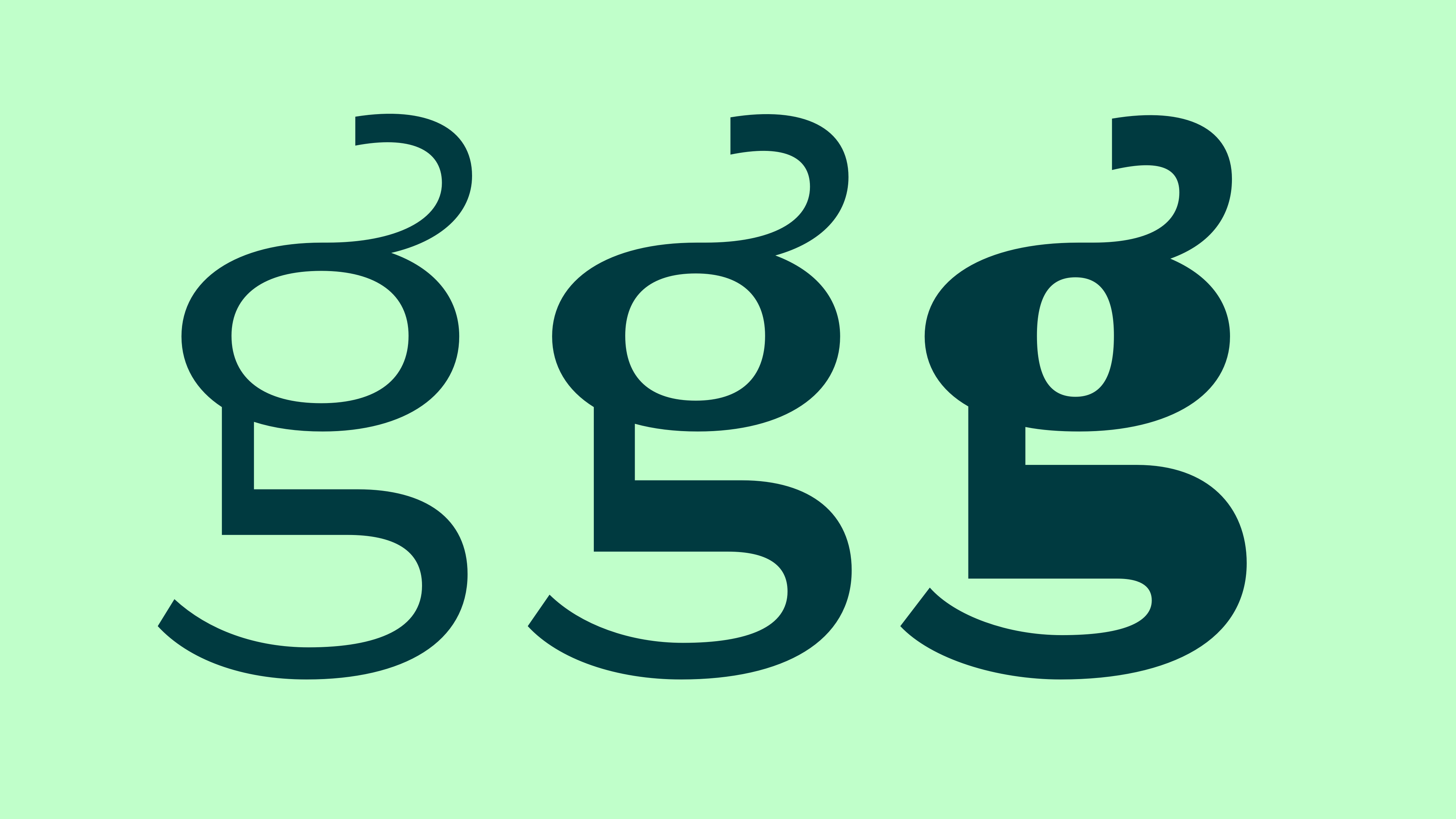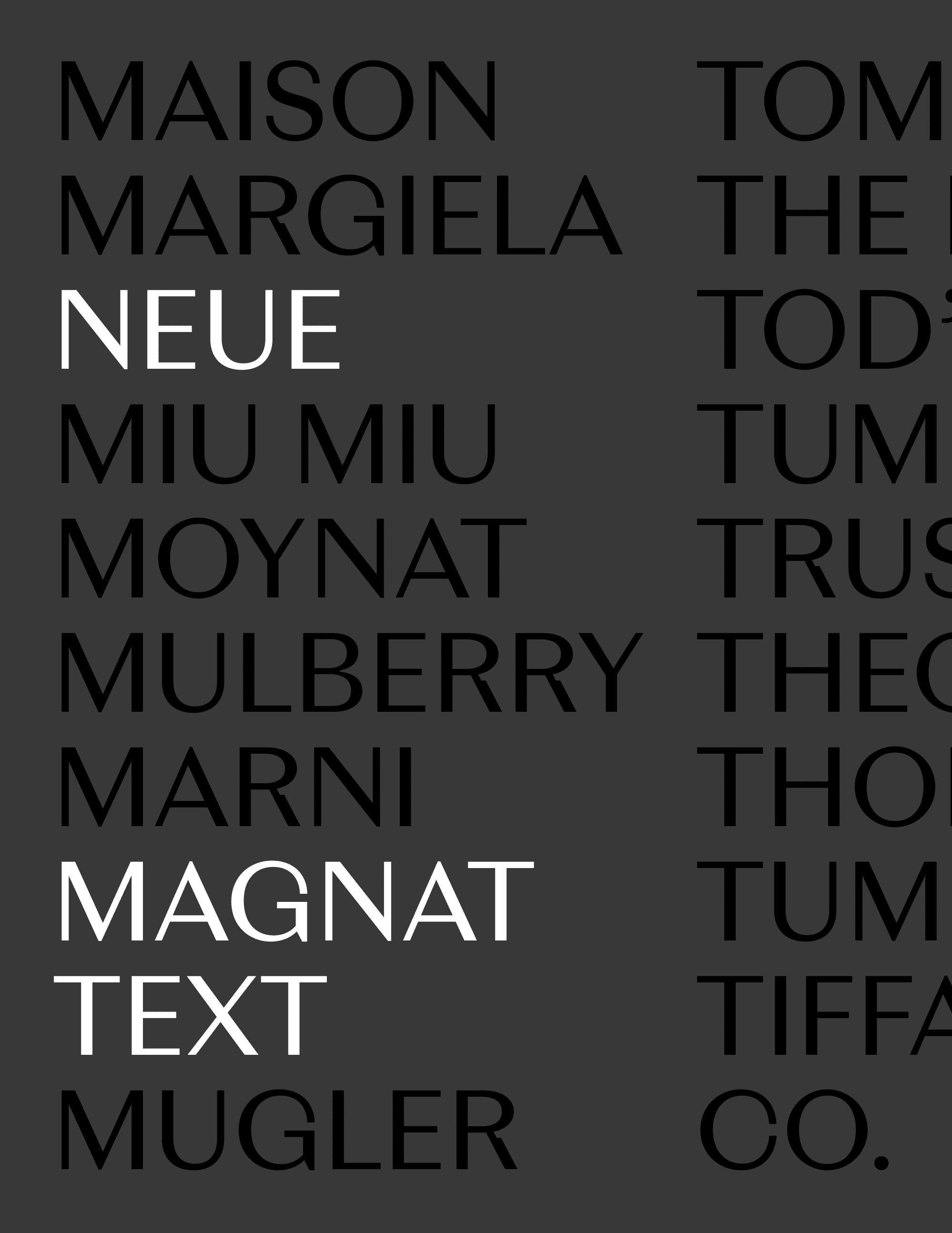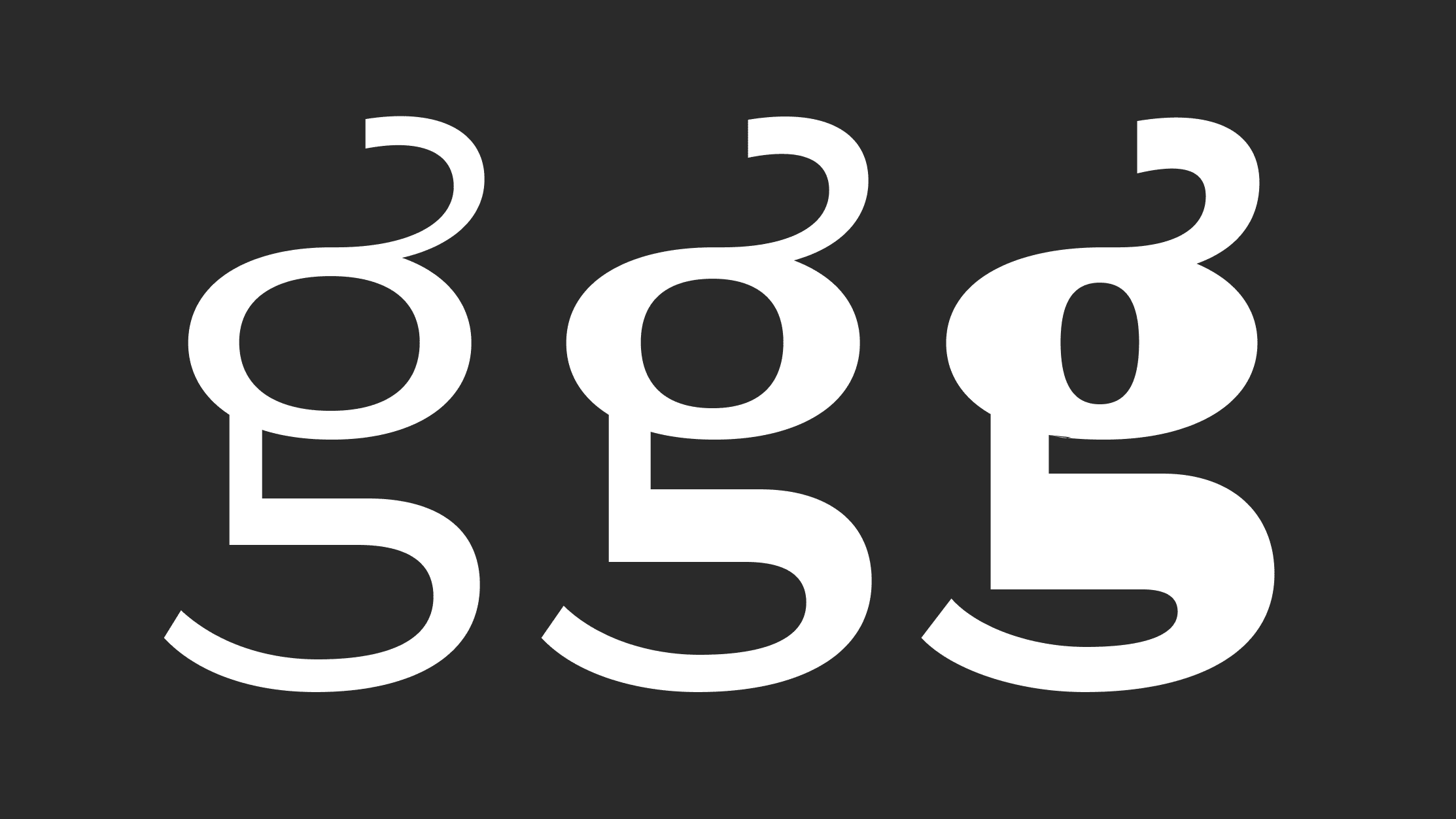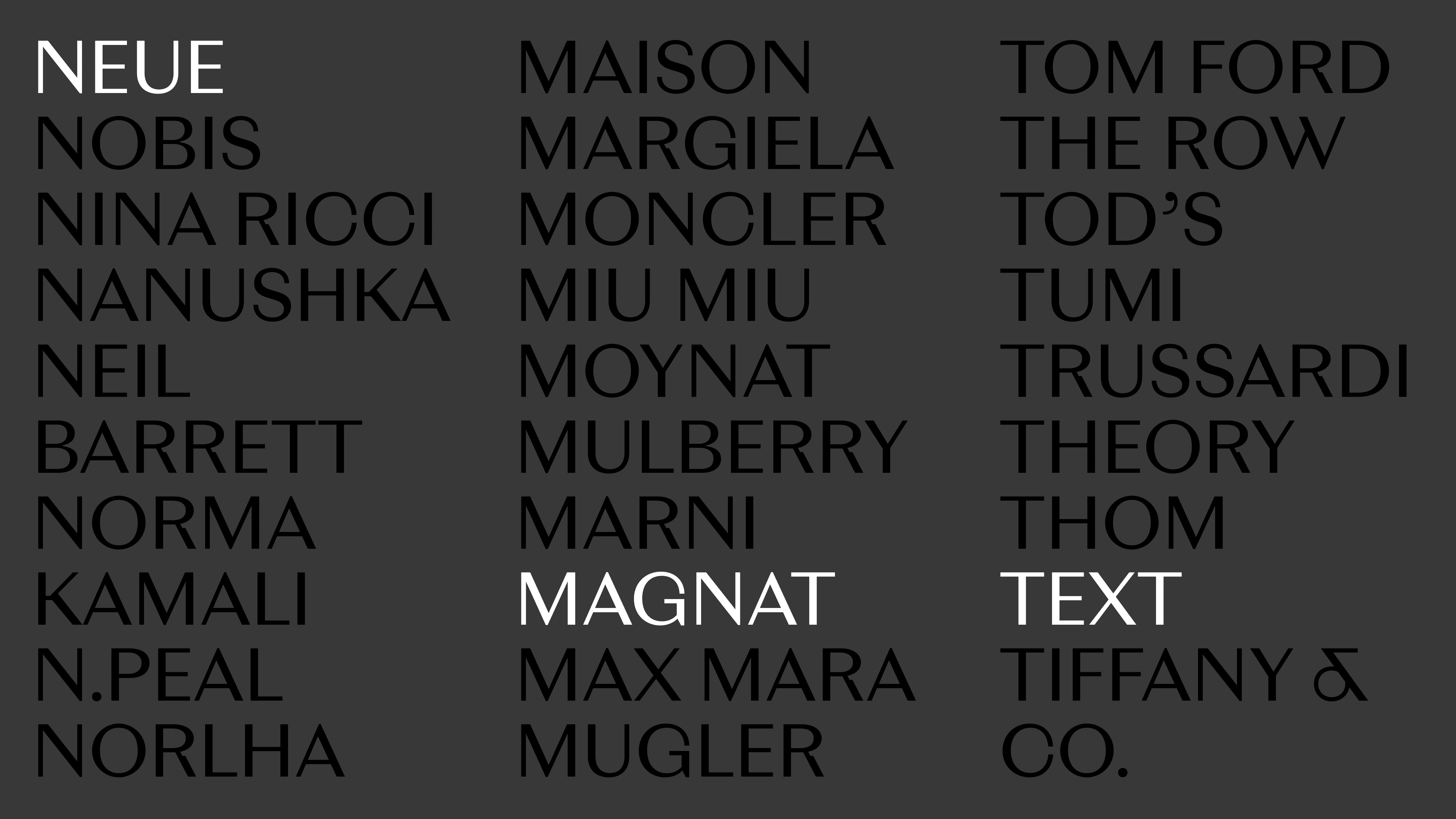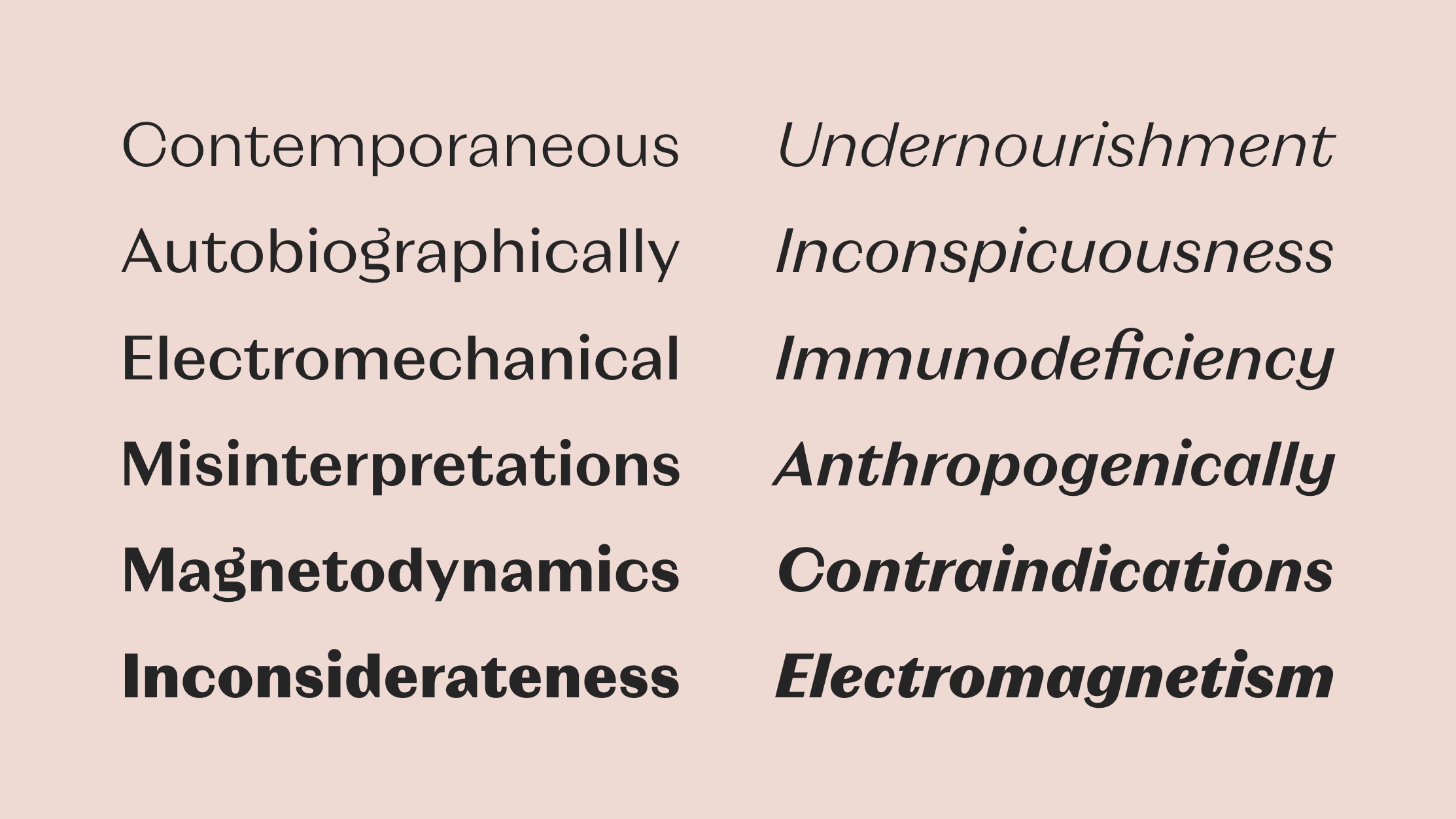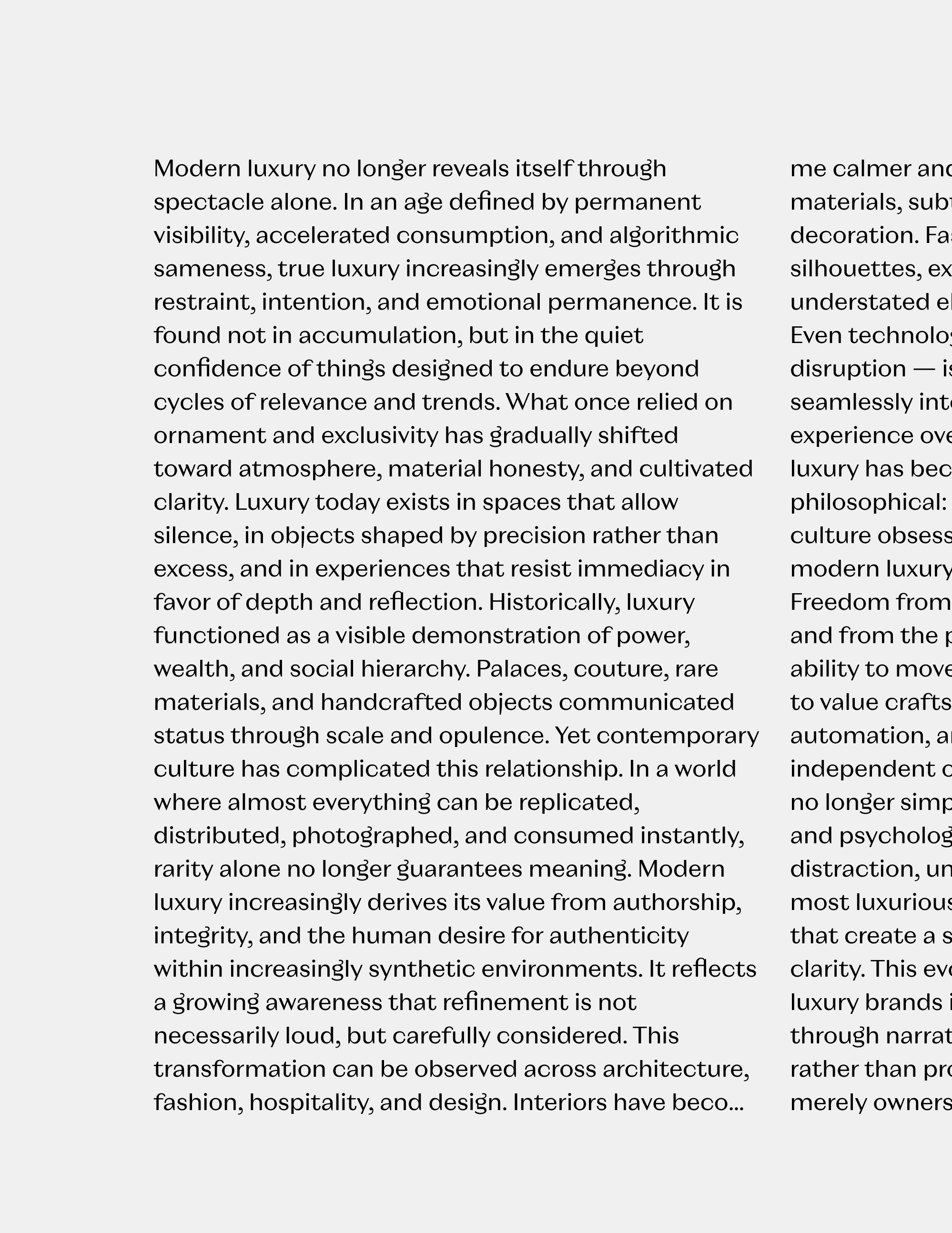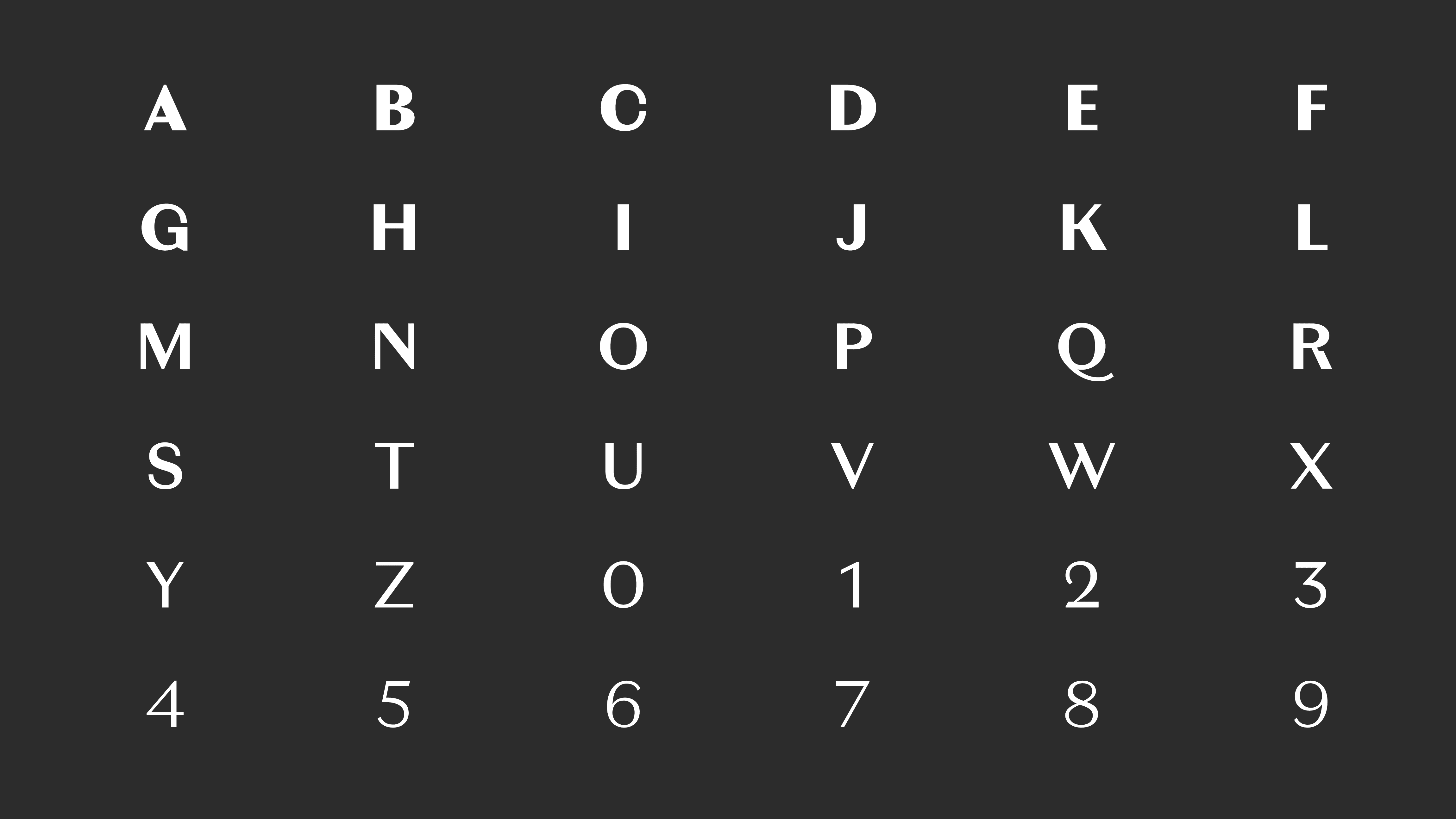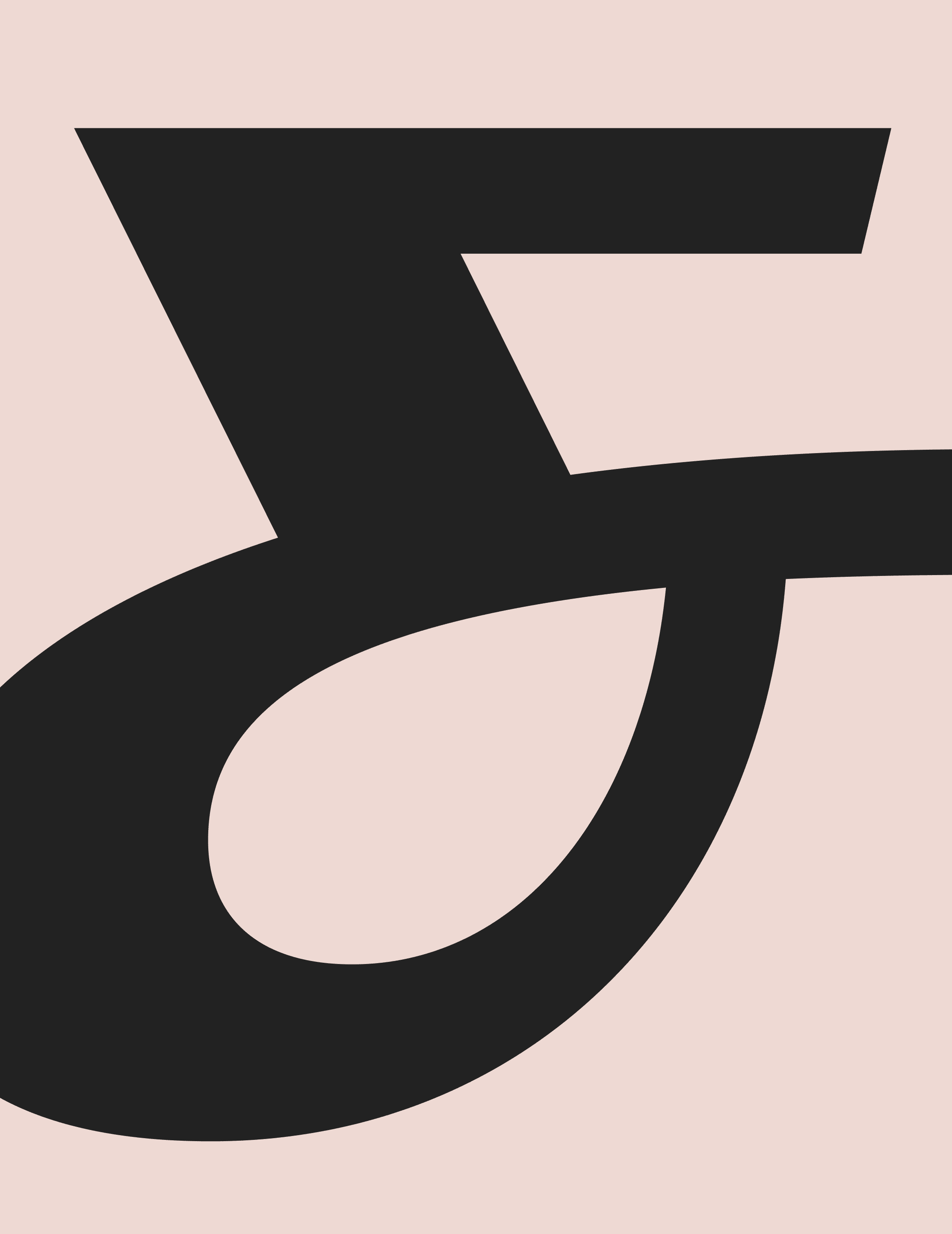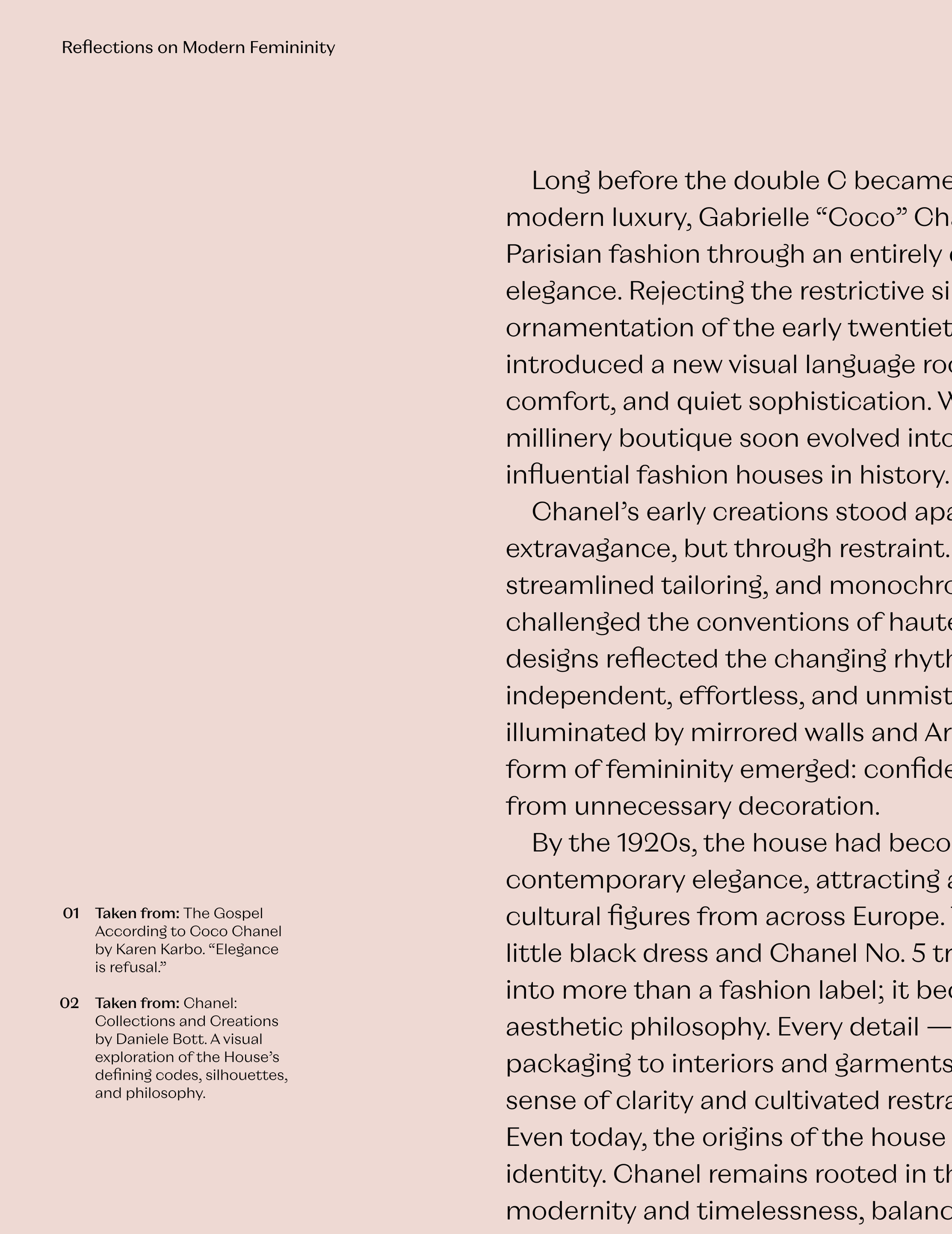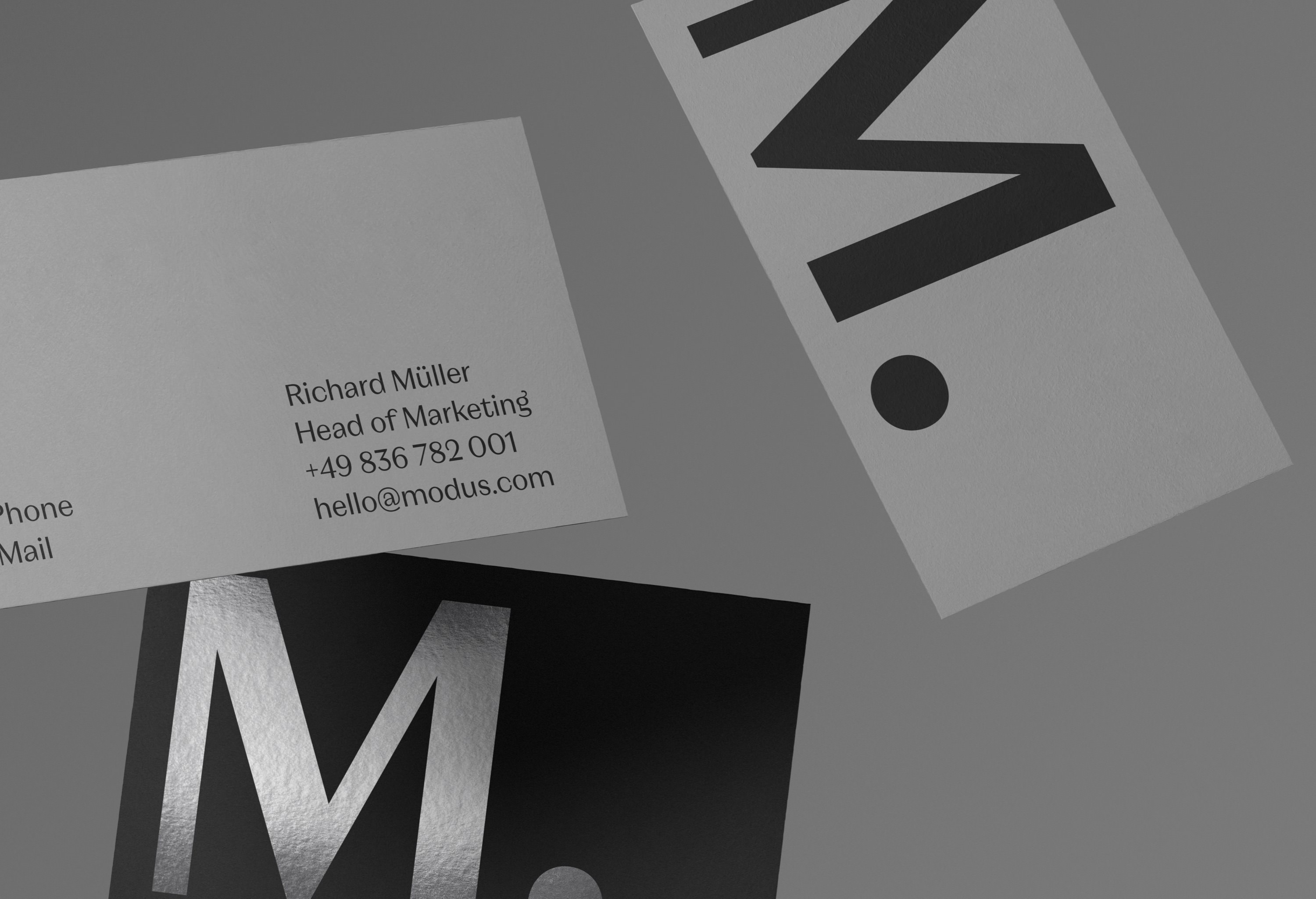
Neue Magnat Text draws inspiration from the visual culture of 1920s Berlin. Designed for extended reading, it combines restrained contrast, refined details, and a comfortable reading rhythm. Further subfamilies include Headline and Display .